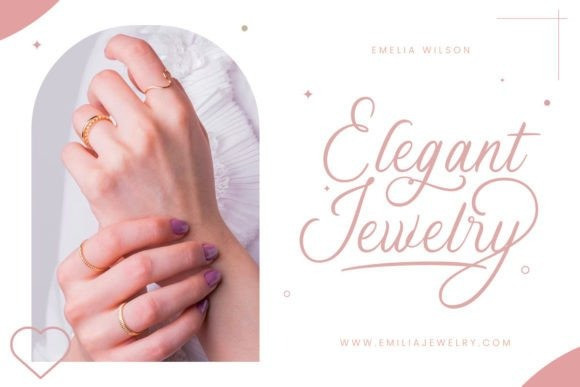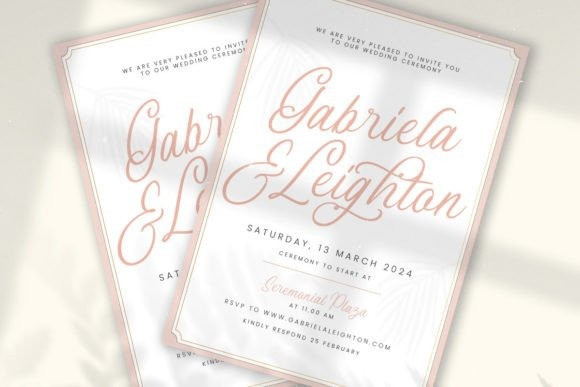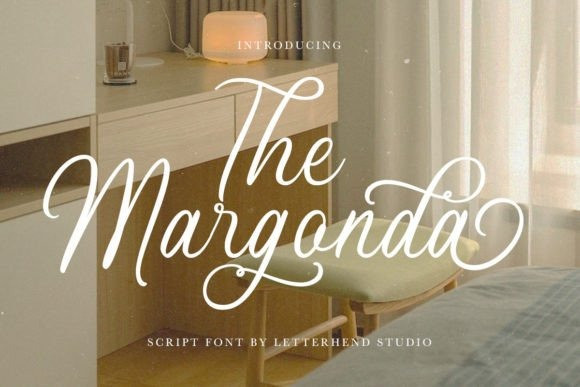
The Margonda Font
The Margonda font is a gorgeous script font that captures the essence of femininity and grace. The fine strokes and intricate details of this font make it a beautiful choice for designs that require a romantic and dreamy feel, such as wedding invitations and the other various formal forms such as invitations, labels, logos, magazines, or any type of advertising purpose.